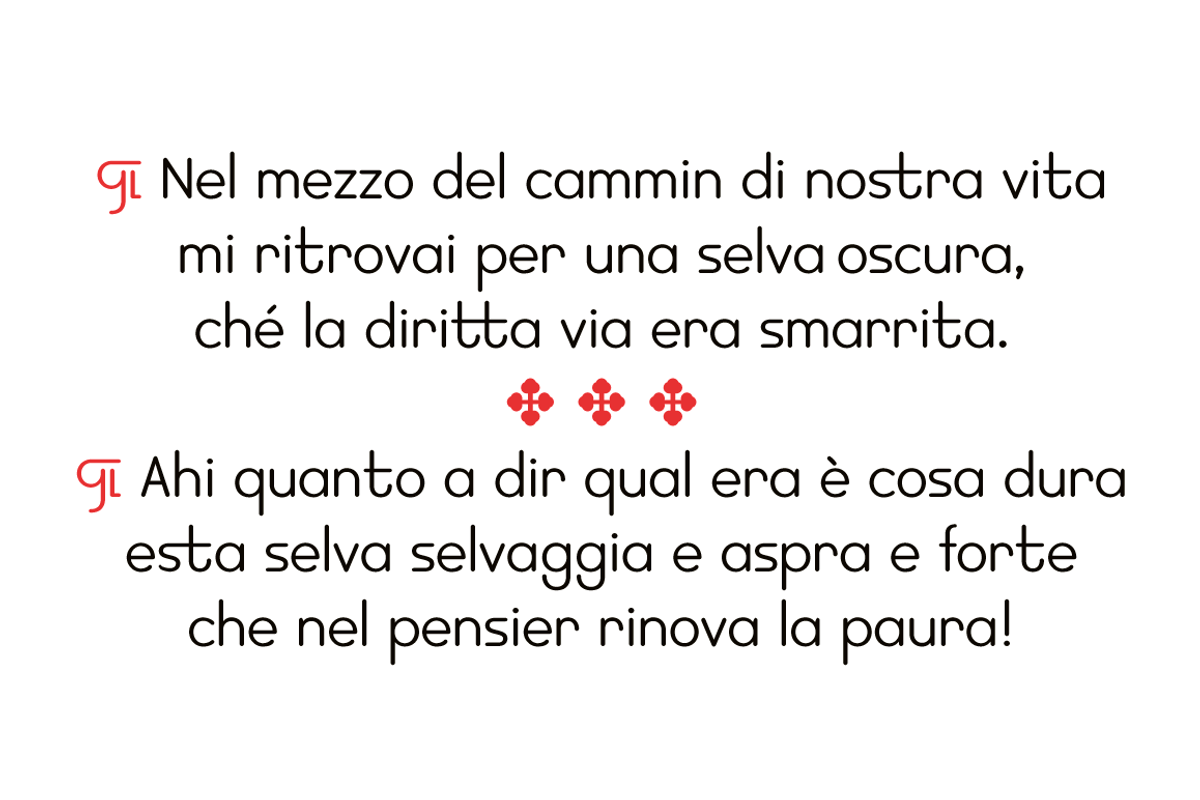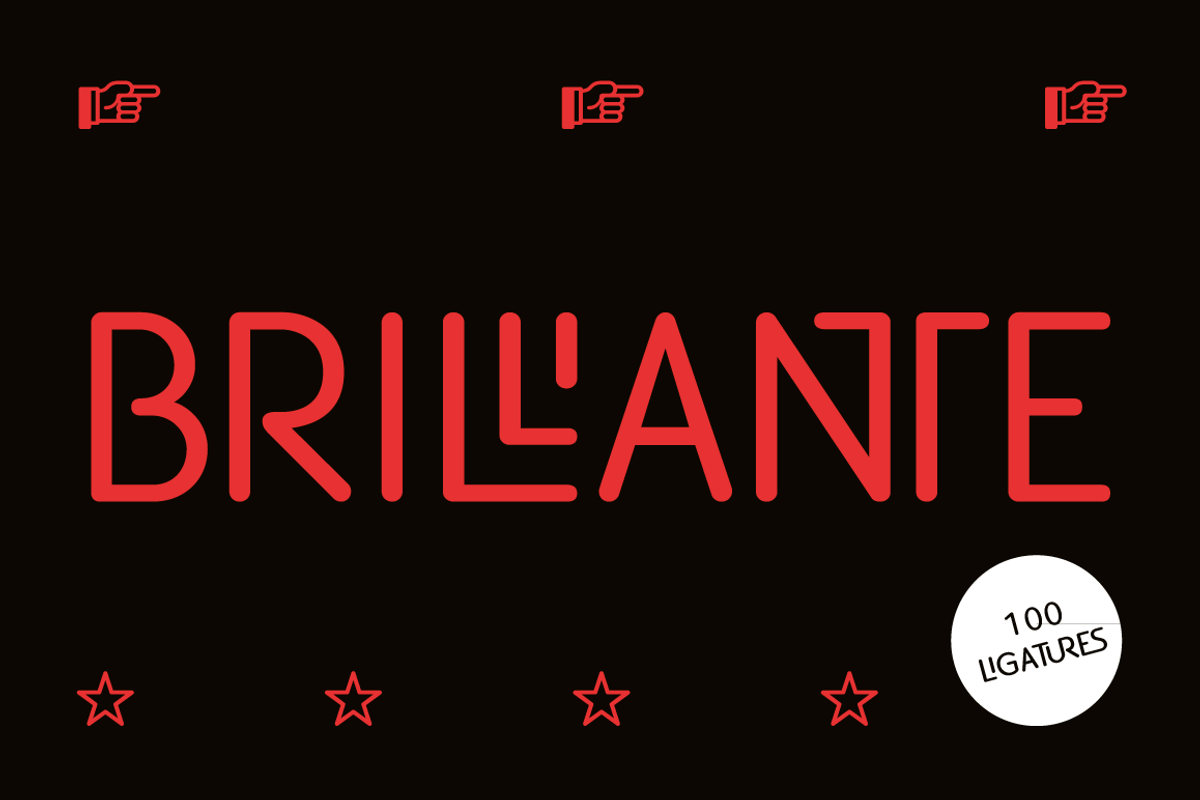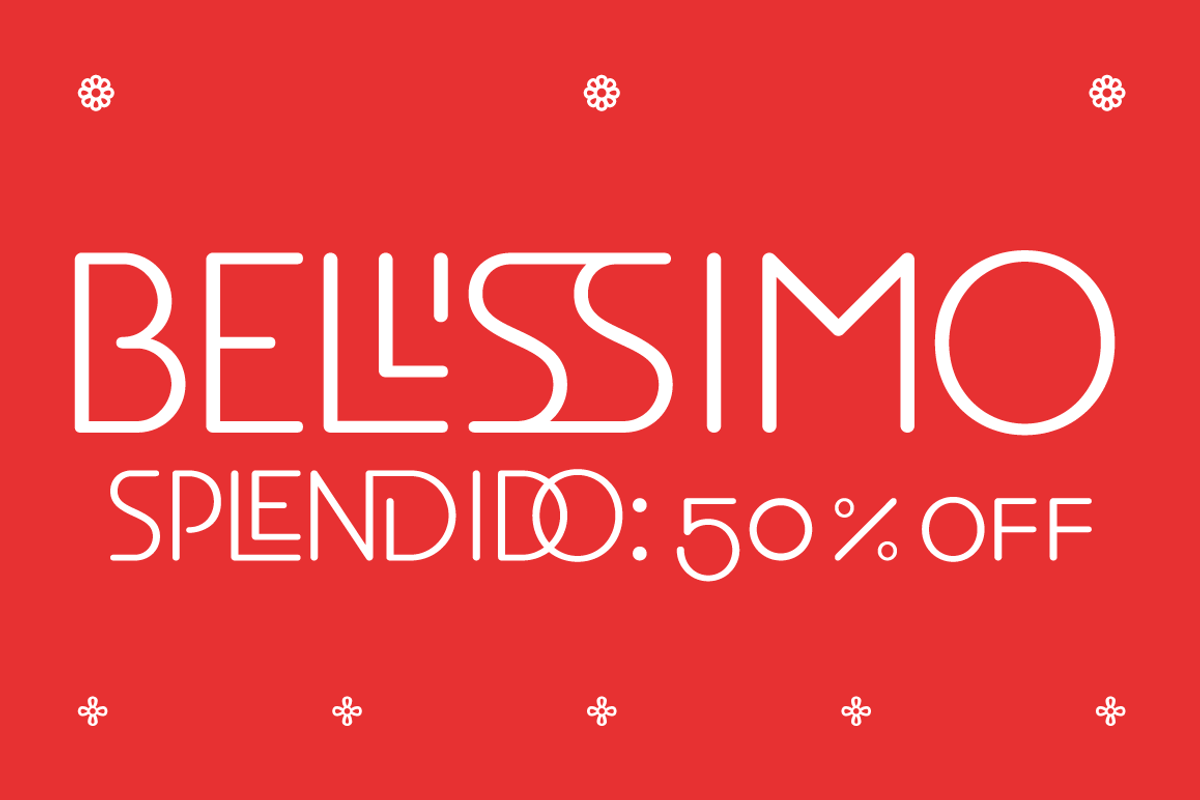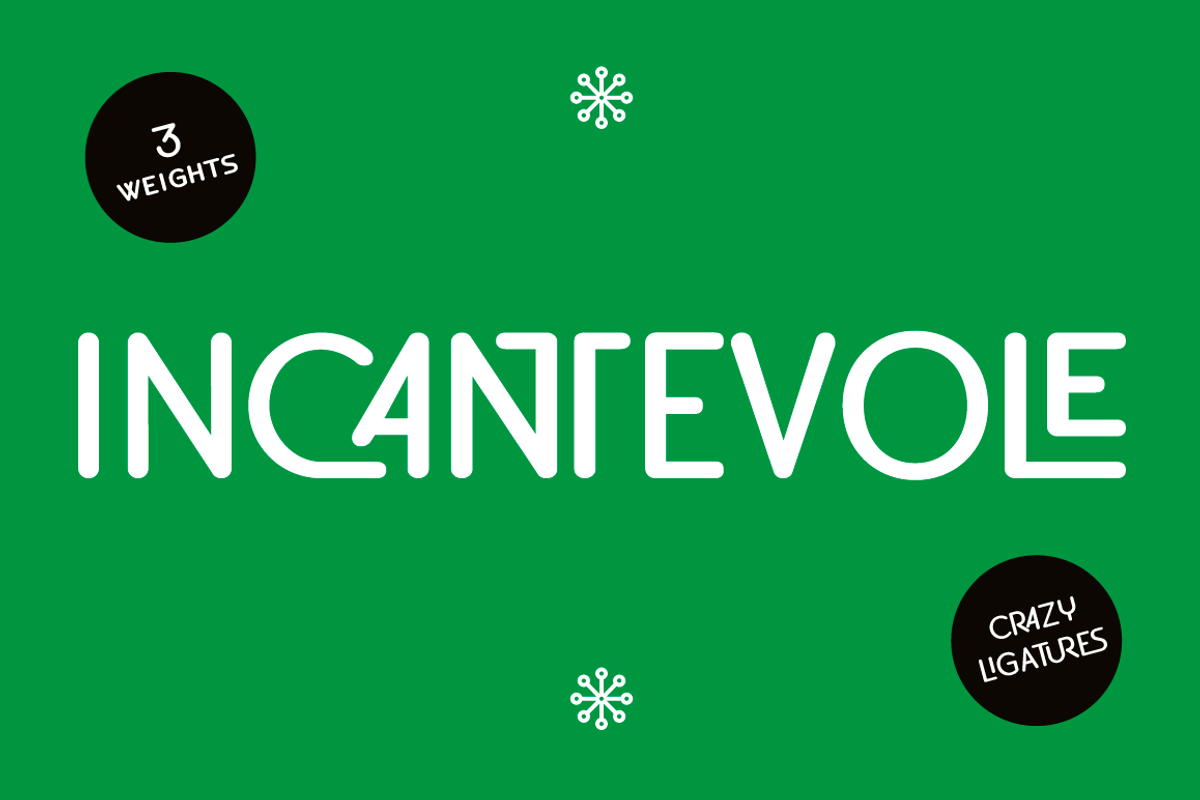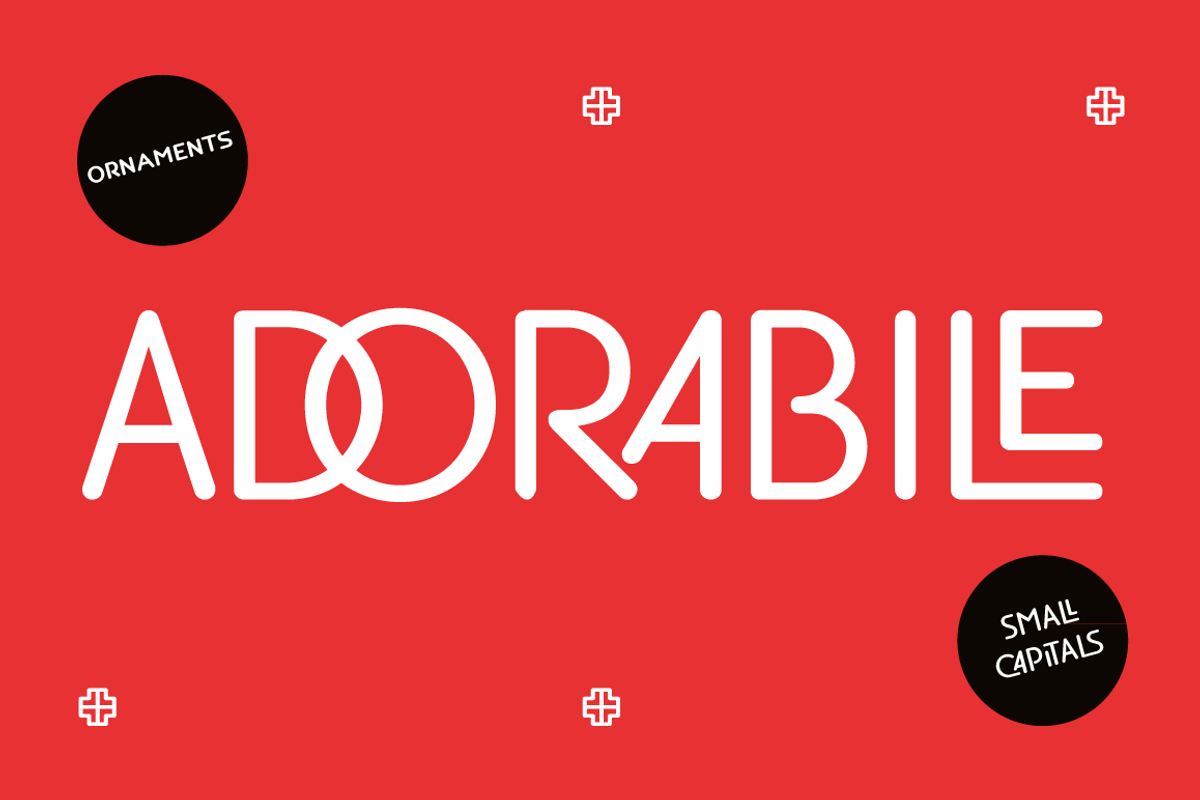
EB Bellissimo Display Fonts 50 %
EB Bellissimo Display Fonts 50 % by Erik Bertell Fonts is a font selected for branding, posters, packaging, typography.
- Bellissimo Display boasts an impressive range of handsome all caps ligatures that would make even Herb Lubalin jealous.
- Small capitals, alternate glyphs and both lower and upper case figures are intrinsic in the design.
Why EB Bellissimo Display Fonts 50 % is worth a look
EB Bellissimo Display Fonts 50 % by Erik Bertell Fonts fits naturally into Branding, posters, packaging, typography.